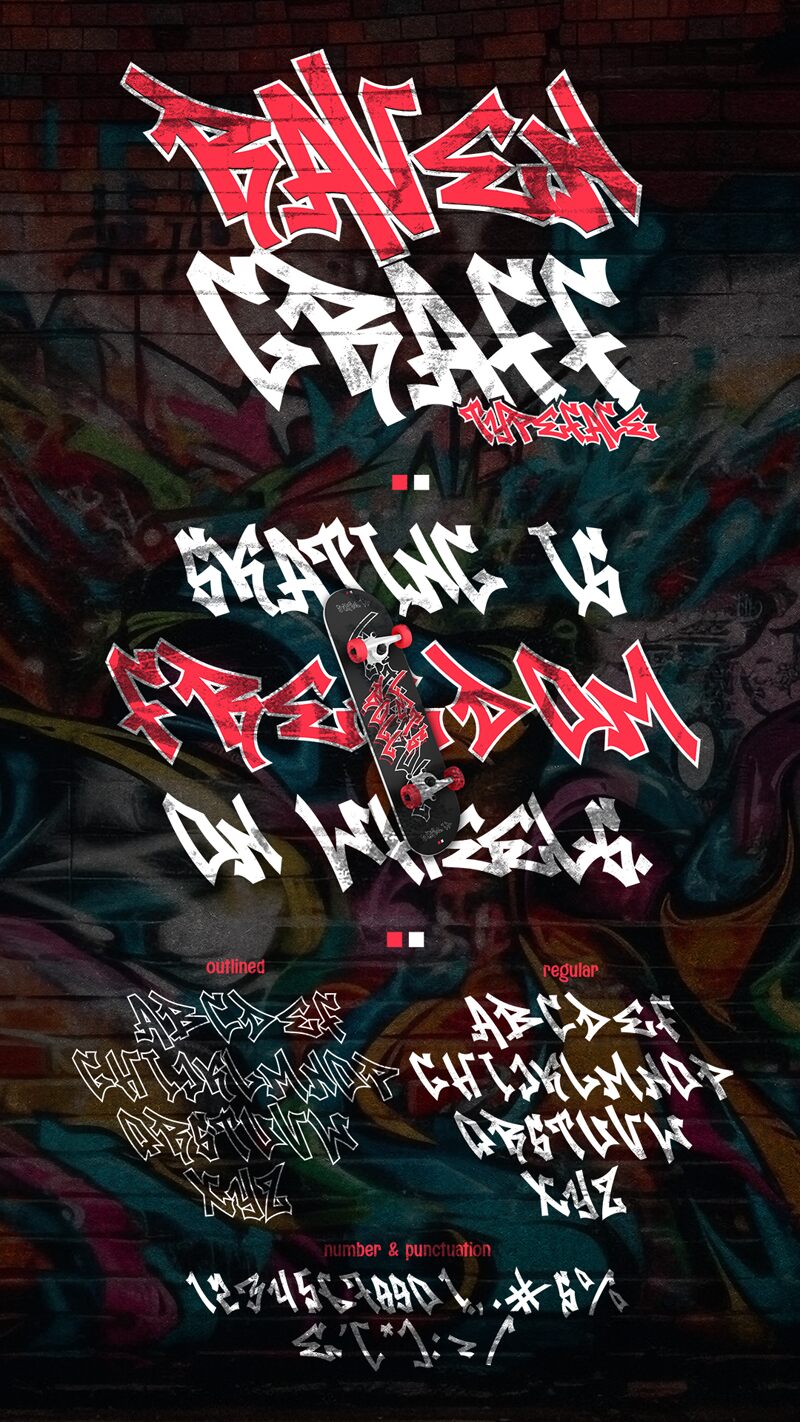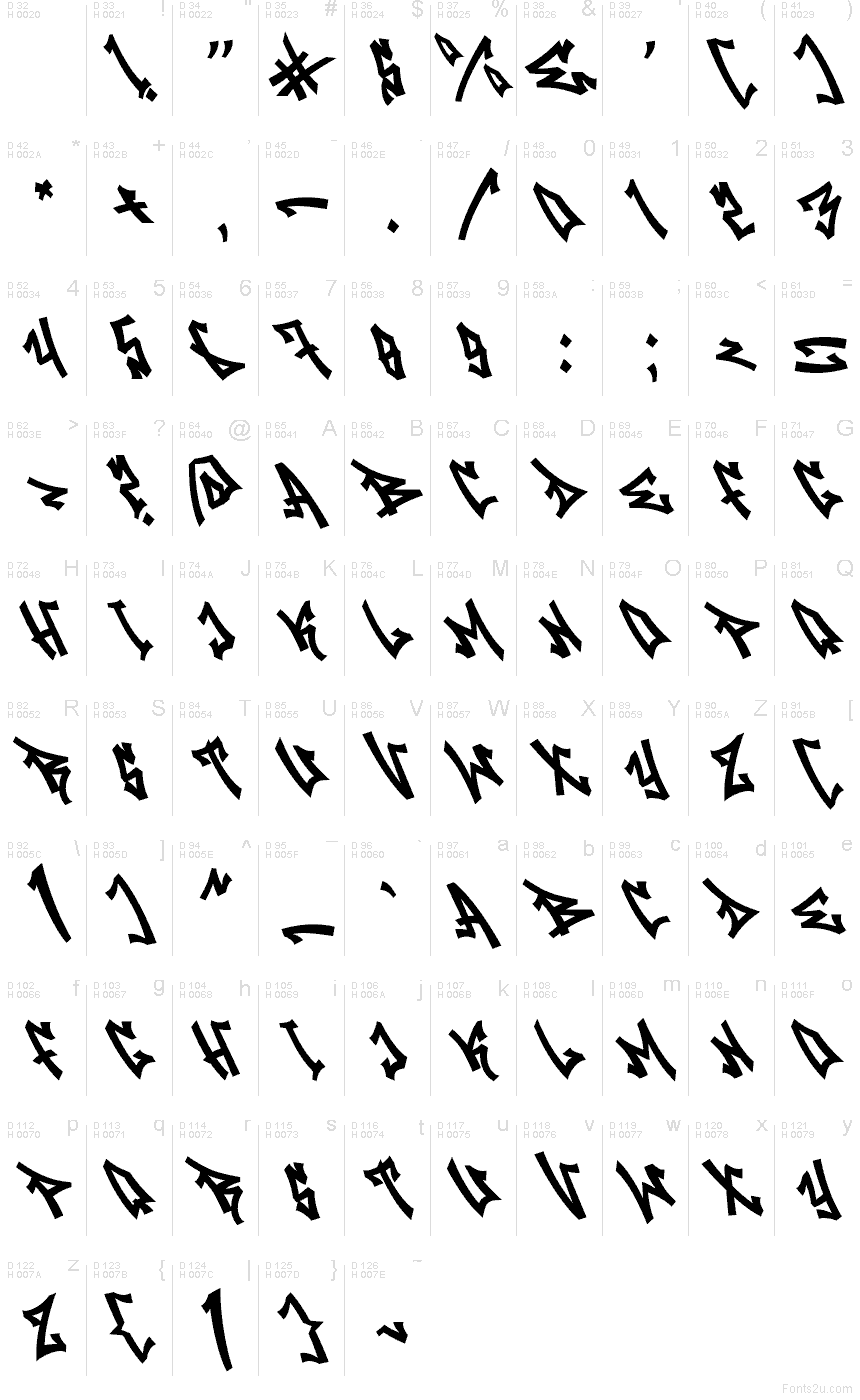
Raven Graff Regular
Raven Graff font by Muhammad Panji Ramdhani of Sipanji x Figuree is a free graffiti font with a sharp, raven-claw attitude. Its letterforms feel carved and spiked, with twitchy angles and tight, aggressive rhythm that reads like fresh tags cut into a wall. The jagged silhouette keeps the energy high even in short words.
Using Raven Graff, you’ll get punchy results on streetwear logos, band merch, skate posters, album covers, gaming thumbnails, sticker packs, and edgy event flyers. Set it large so the spikes can breathe, and pair this free font with a clean sans for the small info text.